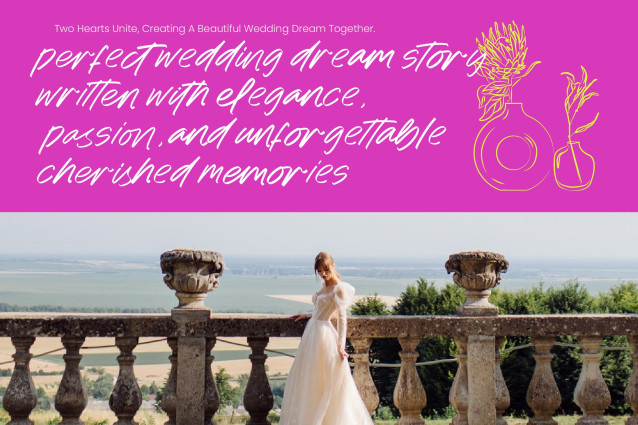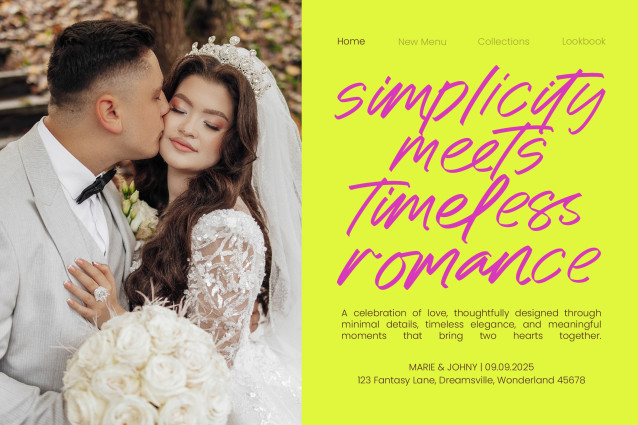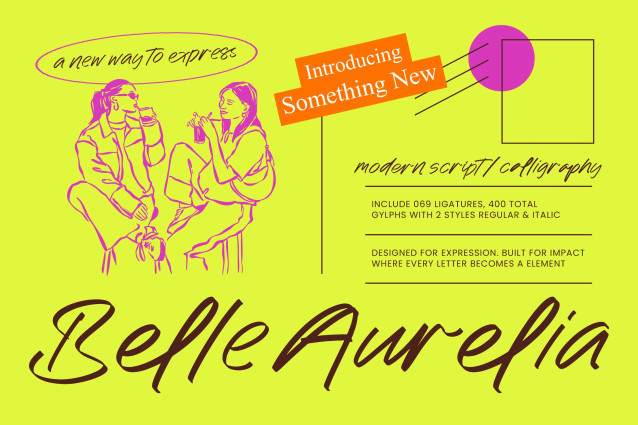
Belle Aurelia – Modern Script Calligraphy is a masterclass in fluid typography, offering a rhythmic, handwritten aesthetic that commands attention while maintaining a sophisticated allure. Designed for creators who seek to bridge the gap between bespoke artistry and commercial design, this typeface transforms every character into a striking visual element.
Precision engineering meets hand-crafted beauty with an impressive library of over 400 glyphs and 69 unique ligatures. With its extensive multilingual support, Belle Aurelia – Modern Script Calligraphy adapts seamlessly across global markets, making it incredibly versatile for international projects. This high-contrast script ensures that your message remains legible yet expressive, providing a polished finish that resonates with diverse audiences worldwide.